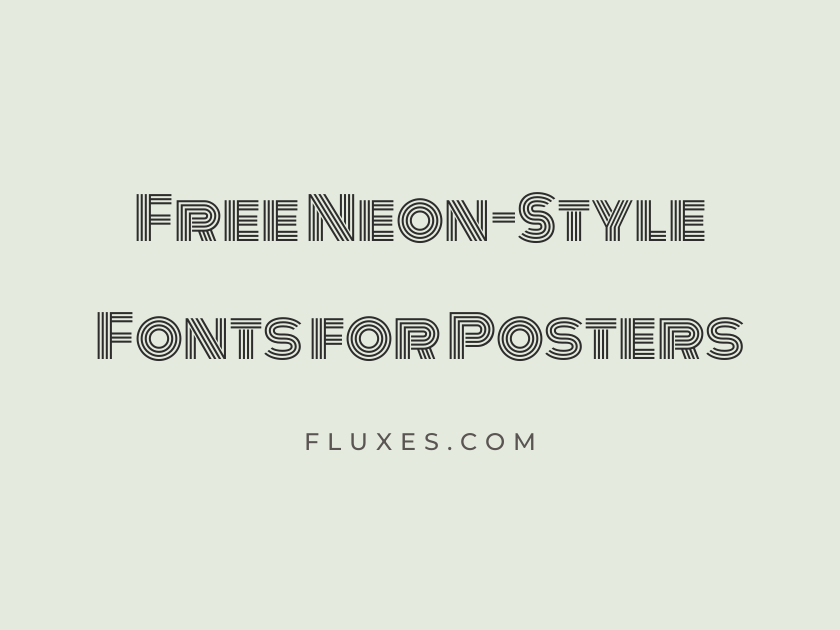
71 Best Free Neon-Style Fonts for Posters
Neon-style lettering has been a mainstay of poster design since the first tube signs buzzed over diners, cinemas, and dive bars, and that glow-drenched energy still sells tickets, drinks, and gig nights today. Whether you are chasing a literal tube-light script, a chunky signage face built for city storefronts, or a synthwave sci-fi display for a retro-futuristic flyer, Google Fonts has grown into a genuinely deep well for this look. The trick is knowing which families actually carry that buzzing, hand-bent, electric personality instead of just looking bold on a screen, and pairing them with the right glow effects, gradients, and dark backgrounds to sell the illusion.
1. Monoton
Open All Night, glowing bright downtown
Monoton is the font most designers reach for first when a poster needs actual neon tubing rather than a font that merely gestures at it. Its looping double-stroke letterforms are drawn to mimic the continuous bent glass of a real sign, complete with the rounded terminals where a fabricator would have sealed the tube. It reads best oversized and in a single word or short phrase; stack a paragraph of body copy in it and the shapes turn to visual noise.
2. Neonderthaw
Live Music Tonight under electric light
Neonderthaw
Fewer people know Neonderthaw, which is a shame, because it is one of the only Google Fonts scripts purpose-built to look like a hand-bent cursive tube sign, complete with looping tails and the odd flickering, imperfect curve. It has a scrappier, more DIY spirit than Monoton, closer to a hand-lettered bar sign than a polished corporate wordmark. Use it for anything that wants to feel a little rough around the edges, like a local venue flyer or a late-night food truck poster.
3. Bungee
Downtown Diner, Open 24 Hours
Bungee was designed by Google’s own type team as an homage to urban street signage, and it shows in every thick, condensed, slightly stubby letterform. It carries a confident, blocky swagger that works whether you are laying it flat, at an angle, or wrapped around a badge shape. Because the whole Bungee superfamily shares the same skeleton, it is an easy font to build a layered neon effect with, stacking the outline and shade versions behind the solid weight to fake dimension and glow.
4. Bungee Inline
Grand Opening, Step Right This Way
The inline groove running through each letter here does a lot of the neon-tube illusion’s heavy lifting on its own, so a simple colored glow filter behind it can look convincingly like lit glass. It pairs naturally with the solid Bungee weight for a two-layer sign effect.
5. Bungee Outline
Arcade Zone, Insert Coin to Play
Bungee Outline
Strip away the fill and you get a hollow, tube-ready outline that is arguably the easiest font on this list to turn into a believable neon sign with nothing more than a drop shadow and a saturated stroke color. It struggles at small sizes, where the open counters can clog up, so save it for headlines.
6. Bungee Shade
Midnight Show, Doors Open at Nine
This version bakes a hard-edged extruded shadow directly into the letterforms, giving posters an instant sense of depth against a dark backdrop without any extra layering work. It is particularly good for retro arcade or boardwalk-attraction themes.
7. Bungee Spice
Neon Nights, Electric Sunset Colors
Bungee Spice
A color font in the truest sense, Bungee Spice bakes a warm pink-to-orange gradient straight into the glyphs, so it already looks lit from within before any effects are applied. It only renders its gradient in apps and browsers that support OpenType color fonts, so double-check how it displays wherever the poster will actually live.
8. Nabla
Glow Bar, Cocktails After Dark
Nabla
Nabla is a variable color font engineered specifically to fake extrusion, shadow, and glow, which makes it feel almost tailor-made for neon and blacklight poster work. Its editable depth and highlight axes let you push the letters from a subtle raised sign into something closer to a full chrome-and-glow arcade marquee. It is a heavier technical lift than a static font since you are leaning on variable axes and color-layer support, but the payoff for a hero headline is hard to match anywhere else on Google Fonts.
9. Sixtyfour
System Online, Enter the Grid
Sixtyfour
Built around the blocky geometry of seven-segment and dot-matrix displays, Sixtyfour looks like it belongs on an old calculator readout or a green-on-black terminal screen. Drop it into a cyberpunk or hacker-themed gig poster and it does most of the atmospheric work by itself.
10. DotGothic16
Pixel Arcade, High Score Tonight
DotGothic16
Originally drawn for Japanese dot-matrix signage, DotGothic16 has that satisfying LED-panel texture that reads as digital signage rather than hand-lettered neon glass. It is a strong choice for arcade, gaming, or tech-themed posters that want a screen-lit rather than gas-lit glow.
11. VT323
Insert Coin, Continue Player One
Neon-inspired lettering covers far more ground than a single tube-script cliché, from pixel-perfect arcade fonts to chrome-edged sci-fi faces to hand-bent cursive signs, and Google Fonts now has genuinely strong, free options across every one of those moods. Mix a loud display headline with a calmer supporting font, lean on glow and shadow effects to finish the illusion, and the right combination will carry a poster’s energy long after the first glance.